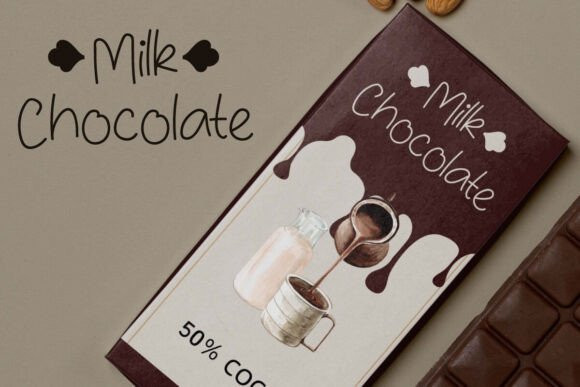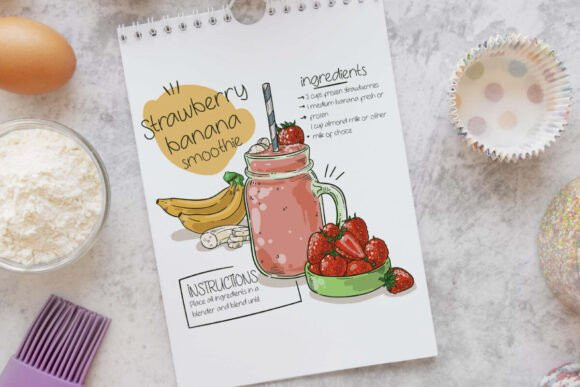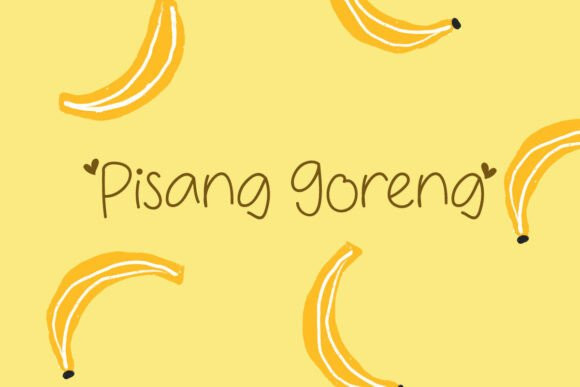
Pisang Goreng Font
Pisang Goreng Font is an attractive sweet casual handwriting font with cute simple look. This will add a pleasant appearance to your business, such as architect, bakery, café, catering, clothing brand, chocolate brands, cooking, crafts, culinary, fashion, film, florist, food court, fruit growers, furniture, graphic design, pastry, photography, printing, publishing, restaurant, retail, wellness, writer, and many more.